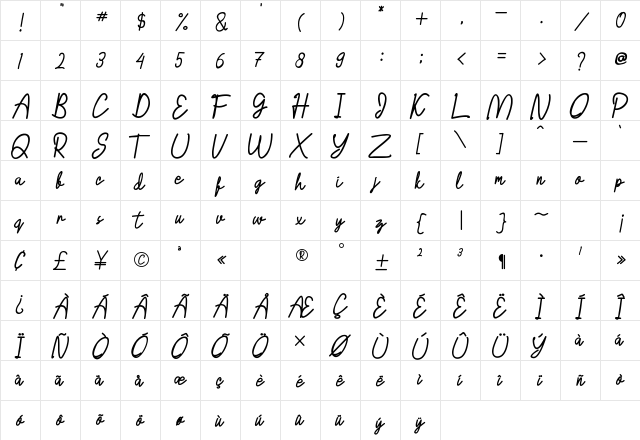
Rote Regular
| Foundry | Dawn Creative |
| Designer | Fajar Rachmadi P. |
Design Context for Rote Typeface
Rote is a composed and adaptable typeface that performs quietly and consistently across a wide range of design contexts.